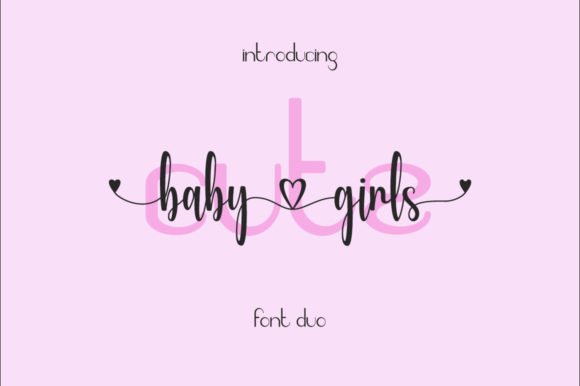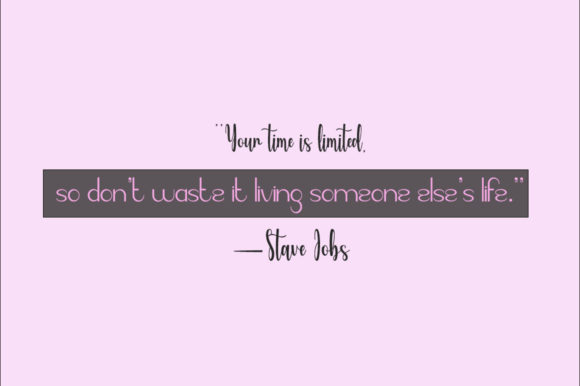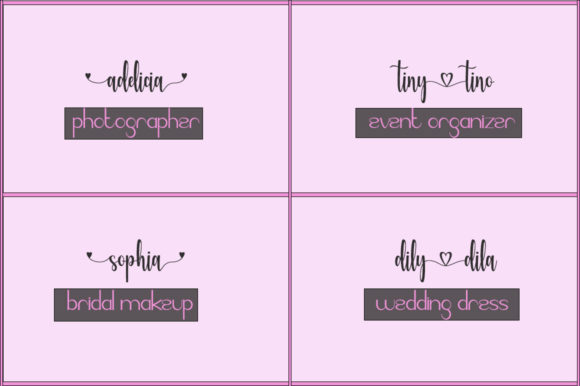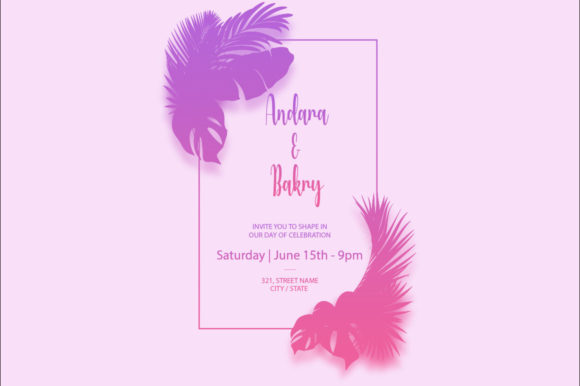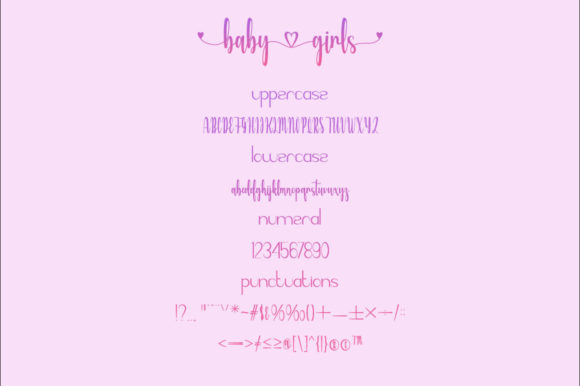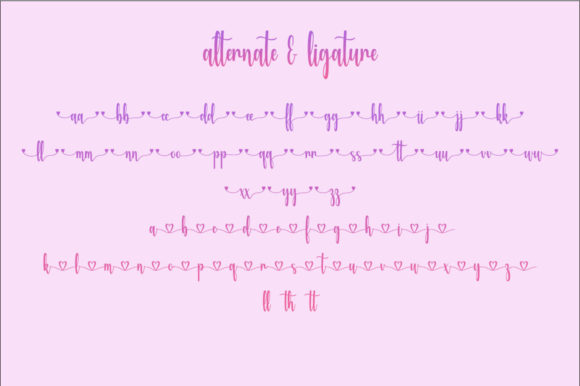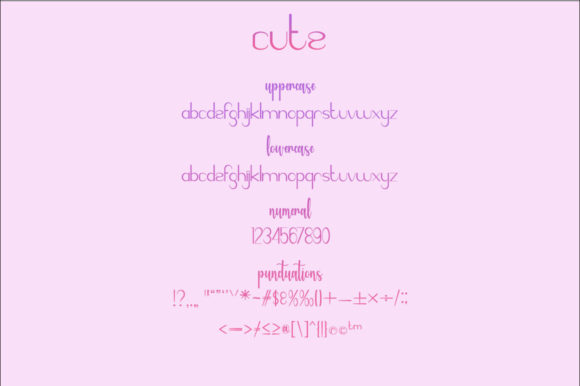
Unleash Your Creativity with the Sweetest Font Around
Have you ever stared at a blank page, feeling stuck and unsure of where to start? That’s exactly where I was when I stumbled upon the Cute Baby Girls Font. Its whimsical charm and playful flair instantly sparked a wave of inspiration, and I knew I had to share it with fellow creatives.
This lovely duo font is a perfect blend of sans serif and script styles, exuding warmth, romance, and joy. Whether you’re designing a nursery, creating a wedding invitation, or crafting a children’s book, the Cute Baby Girls Font will elevate your project into a work of art. With its PUA encoding, you’ll have access to a world of glyphs and swashes, giving you endless possibilities to express your creativity.
Cute Baby Girls Font Key Features
- Font Family: A custom-designed script font specifically created for cute and adorable designs.
- Unique Characteristics: Features whimsical and playful letterforms with intricate details, perfect for creating a cute and endearing atmosphere.
Cute Baby Girls Font Review
Overall, I think Cute Baby Girls Font is a lovely, whimsical font that can add a touch of sweetness to any project. ✨ Here are a few things that work well:
- Hand-drawn feel: The font has a hand-drawn, cursive feel that makes it perfect for projects like baby shower invitations or nursery decor.
- Customizable: The font is highly customizable, allowing you to adjust the size, color, and even the spacing between letters.
- Wide character set: The font includes a wide range of characters, including punctuation marks and numbers.
- Limited language support: The font only supports a limited number of languages, which may be a problem for projects that require multilingual text.
- Not ideal for body text: While the font is perfect for headings and titles, it may not be the best choice for body text due to its cursive nature.
- Some characters may not display correctly: Depending on the system or device being used, some characters may not display correctly, which can be frustrating.
Overall, I think Cute Baby Girls Font is a great choice for projects that require a touch of sweetness and whimsy. Just be aware of its limitations and use it accordingly.
The Cute Baby Girls font is ideal for designing baby-related products, such as:
- Baby shower invitations
- Baby gift tags
- Baby clothing and accessories
Remember to experiment with different font sizes, colors, and styles to get the most out of this adorable font!
Alternatives to Cute Baby Girls Font
Great Vibes Font is a playful, handwritten font perfect for creating a whimsical atmosphere. It’s ideal for children’s book illustrations, nursery decor, and other projects that require a carefree feel.
Compared to Cute Baby Girls Font, Great Vibes Font has a more relaxed and casual tone, making it suitable for a wider range of applications.
Carolyna Pro Font is a modern, elegant script font that works well for luxury brands, high-end products, and sophisticated designs. It’s perfect for creating a sense of refinement and sophistication.
Compared to Cute Baby Girls Font, Carolyna Pro Font has a more mature and sophisticated tone, making it better suited for adult-oriented projects.
Alex Brush Font is a elegant, handwritten font with a touch of sophistication. It’s ideal for creating a high-end feel, perfect for luxury brands, wedding invitations, and other special occasions.